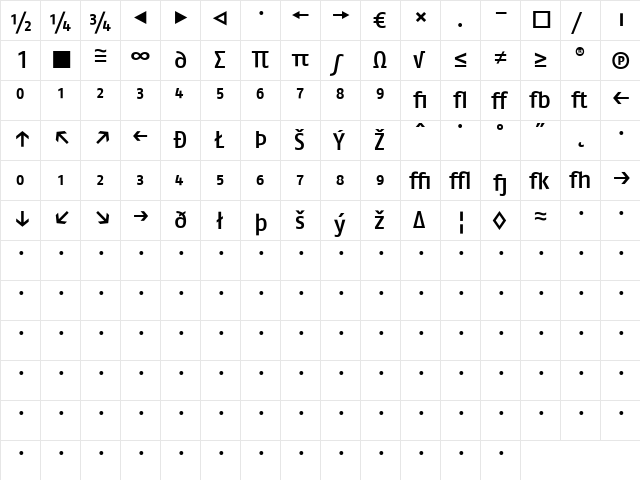
FagoNo Medium Font Preview
FagoNo Medium
FagoNo Medium Font Details
Design Context for FagoNo Typeface
FagoNo offers clean, dependable letterforms without strong stylistic allegiance, making it a practical choice for designers who need flexibility.
Pro Tip: Pair FagoNo with a font of contrasting weight or personality to build a more expressive typographic hierarchy.